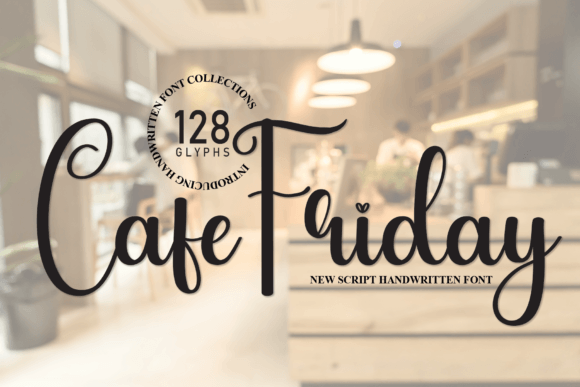
The Perfect Cup of Inspiration: Cafe Friday Font
Do you remember the moment when you first discovered a font that made your design dreams come true? Maybe it was a quirky, handwritten script that added a touch of personality to your project. For many designers, that moment is what makes the creative process so magical. And for those who are still searching for that perfect font, we’re excited to introduce you to the Cafe Friday Font – a sweet and friendly handwritten font that’s sure to become your new favorite.
Designed to evoke the feeling of a cozy cafe on a Friday afternoon, this font is perfect for adding a warm and inviting touch to your designs. Whether you’re working on a branding project, a social media campaign, or a digital product, the Cafe Friday Font is a versatile and valuable addition to your toolkit. With its natural and unique style, the possibilities are endless, and we can’t wait to see what you create with it.
- Unique Characteristics: Cafe Friday Font features a unique blend of modern and vintage elements, making it perfect for creating a cozy and inviting atmosphere in cafe and restaurant designs.
- Legibility: The font is designed to be highly legible, even at small font sizes, making it ideal for use in menus, signage, and other applications where readability is crucial.
- Style Variations: Cafe Friday Font comes in a range of styles, including bold, italic, and regular, giving designers the flexibility to create a wide range of designs.
Cafe Friday Font Review
I’ve had the chance to play around with the Cafe Friday Font, and overall, I’m quite impressed. Here’s a breakdown of what works well and where it falls short.
- The cafe-inspired feel is perfect for coffee shops, bakeries, or any food-related brand. It’s cozy and inviting.
- The font is highly legible, even at smaller font sizes. This makes it a great choice for body text.
- The bold weight is nice and sturdy, making it perfect for headings and titles.
- The font has a nice, subtle texture that adds character to the design.
- The font may be too playful for more formal brands or businesses.
- The texture can sometimes make the font difficult to read on certain backgrounds or in certain lighting conditions.
- The font family is relatively small, with only a few weights and styles available.
Overall, the Cafe Friday Font is a great choice for brands that want to convey a sense of warmth and approachability. While it may have some limitations, its unique charm and legibility make it a solid addition to any design portfolio.
The Cafe Friday Font is ideal for creating a warm and inviting atmosphere, making it perfect for:
- Cafe and restaurant menus
- Invitations and event promotions
For the best results, use the Cafe Friday Font in conjunction with earthy tones and high-quality images to create a cohesive and visually appealing design.